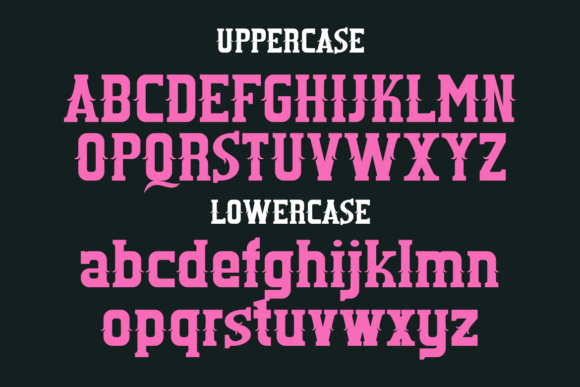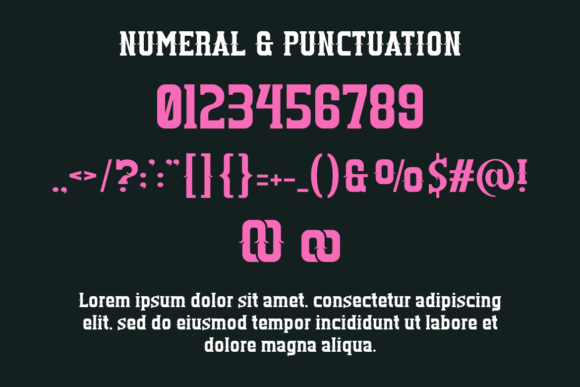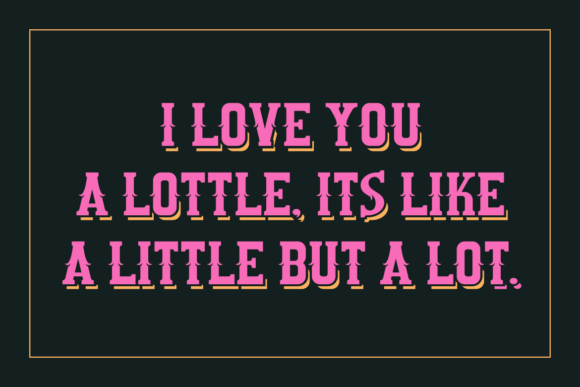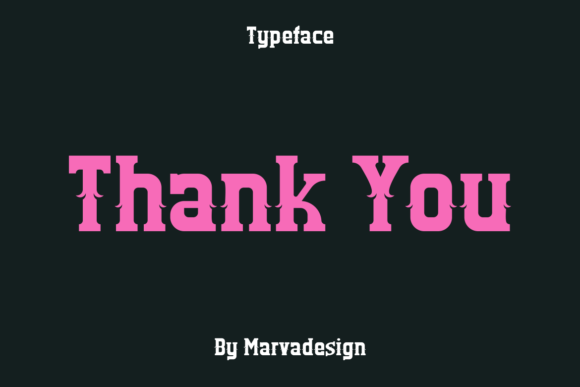
The Bloom Love Font: A Modern Elegance for Your Designs
I’ll never forget the time I was working on a branding project for a luxury wedding planner. I had spent hours scouring the internet for the perfect font, but nothing seemed quite right. That was until I stumbled upon the Bloom Love font. Its sleek, sophisticated appearance immediately caught my eye, and I knew I had found the one. In this article, I’ll share my love for the Bloom Love font, its features, and how to make the most of it in your designs.
A Personal Review: What I Love About Bloom Love
The Bloom Love font is a true gem, and here’s what I love about it:
- ✨ Elegant and modern design: The letters are well-crafted with subtle curves and clean lines that create a sense of balance and harmony.
- ✅ Versatile: Perfect for a variety of uses, including branding, editorial design, and print materials.
- 💯 High-quality: The font is well-spaced, and the kerning is excellent, making it easy to read and visually appealing.
While the Bloom Love font is excellent, there are a few things to keep in mind:
- 🤔 Limited language support: The font may not support all languages, so be sure to check the character set before using it for a project.
- ⚠️ Not suitable for body text: While the font is beautiful, it’s best used for headlines, titles, and short paragraphs. It may not be the best choice for long blocks of text.
The Designer Inspiration Behind Bloom Love
The Bloom Love font was designed with elegance and sophistication in mind. Its creator aimed to craft a font that would exude luxury and refinement, while still being approachable and modern. The result is a font that’s perfect for designers, crafters, and creative hobbyists looking to add a touch of class to their projects.
| Font Name | Bloom Love Font |
| Author | Marvadesign |
| What is the Bloom Love font best used for? | The Bloom Love font is perfect for branding, editorial design, and print materials, such as logos, headlines, titles, and short paragraphs. |
| Is the Bloom Love font suitable for body text? | While the font is beautiful, it’s best used for headlines, titles, and short paragraphs. It may not be the best choice for long blocks of text. |
| Is the Bloom Love font available in different weights or styles? | The Bloom Love font may come in different weights or styles, depending on the version you have. Be sure to check the font files or documentation for more information. |